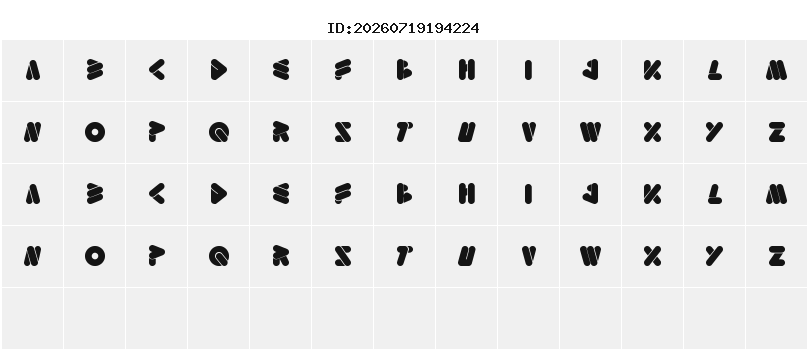
emperor of japan Preview
• Font Name: emperor of japan
• Full Font Name: emperor of japan
About emperor of japan.ttf
emperor of japan.ttf is a modern, elegant sans-serif font designed for ultimate readability and visual harmony. Perfect for branding, headlines, web design, and print materials.